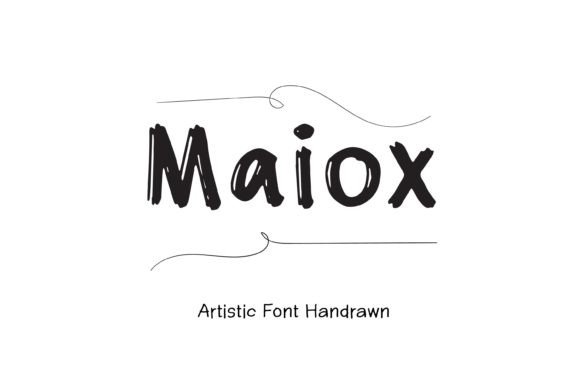
Maiox: A Bold Font for Creative Expression
Maiox is more than just a fontâit's a statement. This artistic display font captures attention with its unique, hand-drawn style that feels both modern and timeless. Whether you're designing a greeting card, crafting a poster, or adding flair to social media content, Maiox brings a touch of creativity that stands out. For professionals and creators alike, choosing the right font can make all the difference in how your message is received. Maiox offers a fresh alternative that blends elegance with personality, making it ideal for those who want to elevate their visual communication.
Understanding the role of typography in design is essential. Fonts aren't just about aestheticsâthey influence readability, tone, and even emotional response. Maiox excels in situations where visual impact matters most. Its bold strokes and flowing curves add energy and movement, making it perfect for headlines, logos, and eye-catching designs. When used effectively, it can transform ordinary text into something memorable and meaningful.
Why Maiox Matters for Designers and Marketers
For designers and marketers, consistency and clarity are key. Maiox provides a versatile tool that maintains legibility while offering a distinctive look. In a world saturated with generic fonts, standing out is crucial. Maiox allows you to create content that feels personal and authentic, which resonates more deeply with audiences. Whether you're working on a brand identity project or a promotional campaign, this font helps convey a sense of artistry and intentionality.
Consider a scenario where a small business owner needs to design a promotional poster for an event. Using a standard sans-serif font might feel too plain, while a highly decorative script could be hard to read. Maiox strikes the perfect balanceâits clear structure ensures readability, while its artistic flair adds visual interest. This makes it a practical choice for anyone looking to enhance their design work without sacrificing functionality.
Practical Applications of Maiox in Everyday Projects
Maiox is particularly well-suited for projects that require a strong visual presence. Greeting cards, for instance, often rely on typography to set the tone. A wedding invitation using Maiox can feel more personal and elegant, while a birthday card might gain a playful edge. The font's adaptability means it can be tailored to fit different moods and messages, making it a valuable asset for any designer or creator.
When it comes to social media, where first impressions matter, Maiox can help content stand out in a crowded feed. Whether it's a quote graphic, a caption header, or a profile banner, this font adds a layer of sophistication that grabs attention. Itâs especially useful for brands that want to maintain a consistent aesthetic across multiple platforms. By incorporating Maiox into their visual strategy, businesses can build a stronger, more recognizable identity.
Who Benefits Most from Using Maiox?
Entrepreneurs and small business owners often find themselves juggling multiple tasks, from product development to marketing. Maiox simplifies the design process by offering a ready-to-use font that doesnât require extensive customization. For someone launching a new product line, using Maiox on packaging or promotional materials can help create a cohesive look that reflects their brandâs personality.
Bloggers and content creators also benefit from Maioxâs versatility. Adding it to blog headers, infographics, or social media posts can make their content more engaging and visually appealing. Educators and trainers might use it to create eye-catching slides or handouts, ensuring that their material is both informative and easy to read. In these scenarios, Maiox isn't just a design choiceâit's a tool that supports effective communication.
Limitations and Considerations When Using Maiox
While Maiox is a powerful font, it's important to recognize its limitations. Its artistic nature may not be suitable for all types of content. For example, long blocks of text in a document or website might become difficult to read if Maiox is used throughout. In such cases, pairing it with a more traditional font for body text can help maintain clarity without losing the visual appeal.
Users should also consider the context in which they plan to use Maiox. A highly stylized font might not be appropriate for formal documents or professional reports. However, when used strategicallyâsuch as in headings, titles, or callout sectionsâit can enhance the overall design without overwhelming the reader. As with any design element, the key is to use Maiox thoughtfully and purposefully.
How Maiox Enhances Creativity and Communication
Creativity thrives on expression, and Maiox provides a unique way to express ideas. For artists and illustrators, it can serve as a foundation for visual storytelling, adding depth and character to their work. Writers and poets might use it to highlight key phrases or lines, drawing readers into the heart of their message. In these contexts, Maiox becomes more than a fontâit becomes a part of the creative process itself.
Effective communication often relies on visual cues, and Maiox plays a vital role in that. When used in presentations or marketing materials, it helps reinforce the message being conveyed. A well-designed quote on a mug or shirt using Maiox can turn a simple phrase into a meaningful statement, connecting with consumers on a deeper level. This ability to bridge the gap between words and visuals makes Maiox a valuable resource for anyone involved in content creation.
Final Thoughts on Choosing Maiox
Choosing the right font is a decision that impacts how content is perceived and remembered. Maiox offers a compelling option for those seeking a balance between creativity and clarity. Its artistic appeal, combined with practical usability, makes it a smart choice for a wide range of applications. Whether you're a designer, marketer, educator, or hobbyist, Maiox has the potential to enhance your work and bring your vision to life.
As with any design tool, the success of Maiox depends on how it's used. Experimenting with different styles, sizes, and placements can reveal new ways to leverage its strengths. By understanding the nuances of this font, users can unlock its full potential and create work that is both beautiful and effective. Ultimately, Maiox isn't just about looking goodâit's about making a lasting impression.